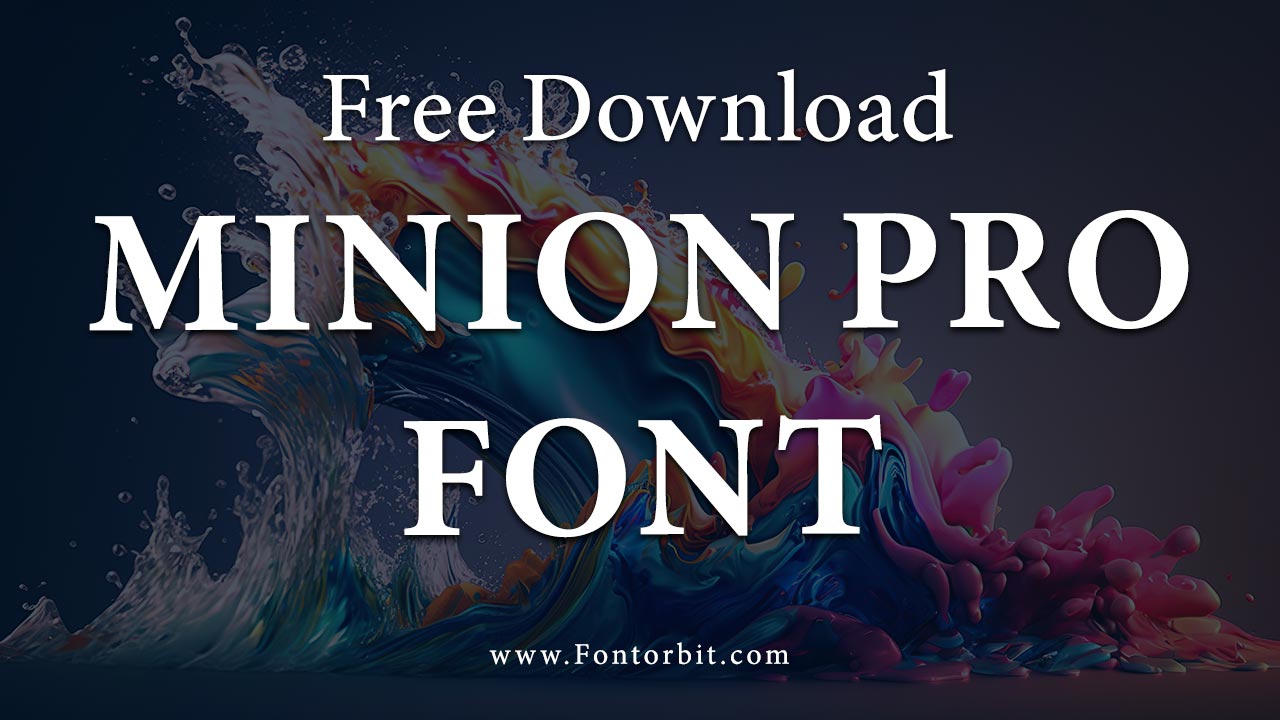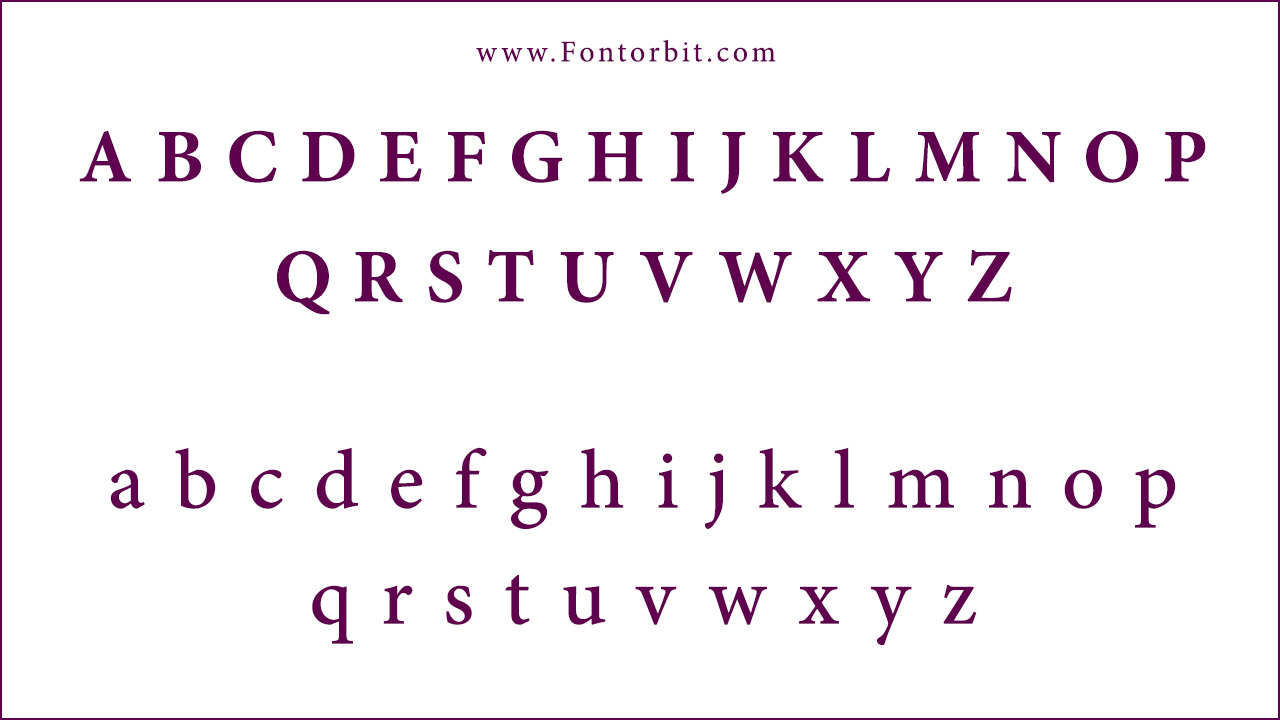
Minion Pro font is a distinguished serif typeface designed by Robert Slimbach and released by Adobe Systems in 1990. Drawing inspiration from Renaissance typefaces, Minion Pro exemplifies the Old-style Serif category with its elegant and timeless design.
This versatile typeface is available in a range of styles and weights, including Regular, Italic, Medium, Bold, and Black, as well as specialized Display and Caption versions. Minion Pro’s classic appearance makes it a preferred choice for various applications, from book publishing to corporate branding.
Minion Pro Font Family Includes
Where Minion Pro Font Is in Use
Minion Pro enjoys wide usage across various design disciplines due to its classic and refined appearance. Notable uses include:
- Book and editorial design
- Corporate branding
- Academic publications
- Websites and digital content
- Advertising and promotional materials
- Government documents and reports
Minion Pro’s refined and timeless design has established it as a staple in both digital and print media. Its adaptability and classic elegance make it suitable for high-quality publications, academic works, and professional branding. While it requires a commercial license, Minion Pro’s comprehensive range of styles and weights ensures its continued relevance and appeal across diverse design contexts.
2.Why Do Designers Choose Minion Pro?
Designers choose Minion Pro for its refined and timeless design, making it ideal for a wide range of applications, from book design to corporate branding.
3.What Trends Are Shaping The Future Of Minion Pro Font?
Minion Pro continues to be used in high-quality publications, corporate branding, and digital media. Its classic style ensures ongoing relevance in various design contexts.
4.When Did Minion Pro Come Into Existence?
Minion Pro was created in 1990 by Robert Slimbach, reflecting the Renaissance’s typographic heritage.
5.What Free Font Is Similar To Minion Pro?
“Crimson Text” is often considered a close alternative to Minion Pro, offering a similar classic serif style.
6.How Many Fonts Are In The Minion Pro Family?
The Minion Pro family includes various styles and weights, from Regular to Black, with Display and Caption versions available in regular and italic forms.
7.What Are The Different Versions Of Minion Pro?
Minion Pro includes a range of styles, such as Regular, Medium, SemiBold, Bold, and Black, along with Display and Caption versions, offering versatility for various design needs.